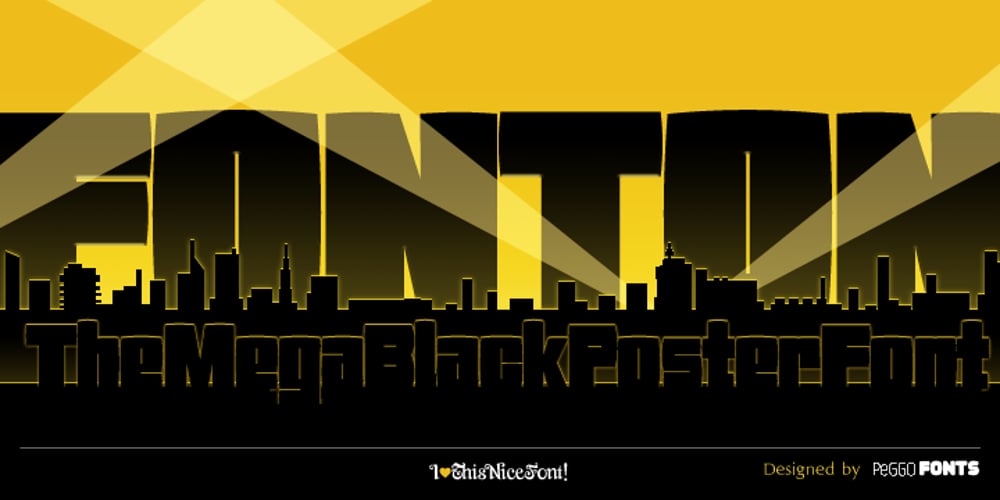
Fonton Font Family was designed by published by PeGGO Fonts. Fonton contains 2 styles and family package options. “Fonton” is a contemporary and modern bigger display font, inspired on bigger ton barrel shape, designed as posters font, with very soft curves drawing each stroke, The project regards 2 weight sizes, regular & small. Is useful in poster but also in covers and headings, letterhead, magazines, POP & Graphic culture, hip-hop topics, urban representations, and big sizes prints, Volumetric 3D shapes, etc. Now decorative ligatures, alternates and figures as the same graphic style as Fonton all powered by OTF technology.